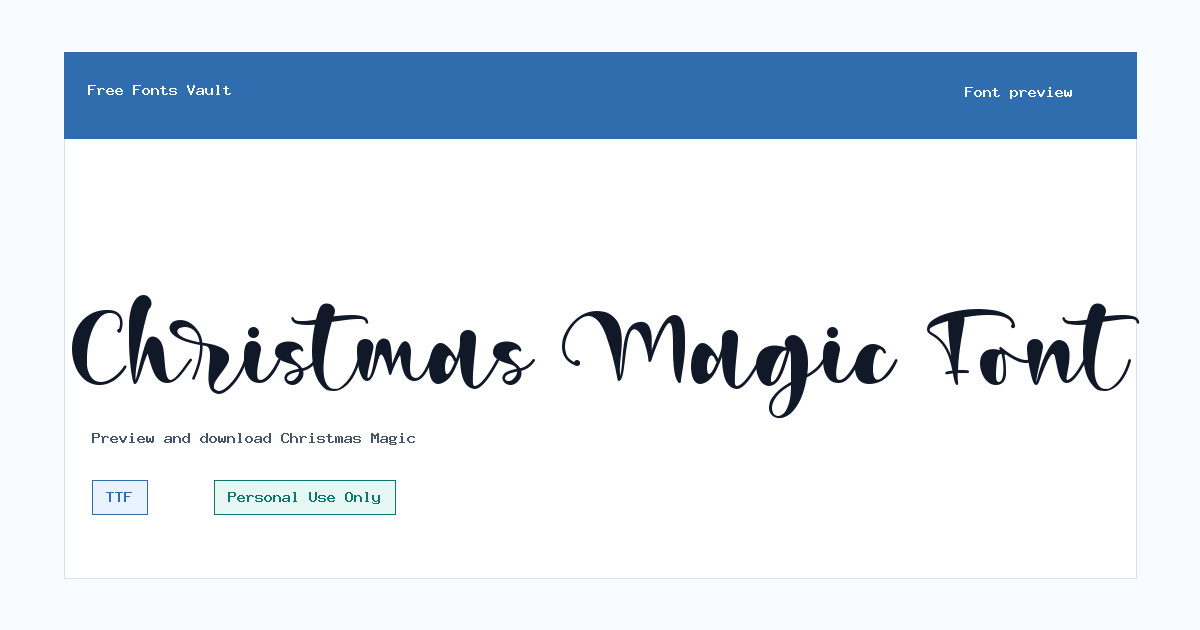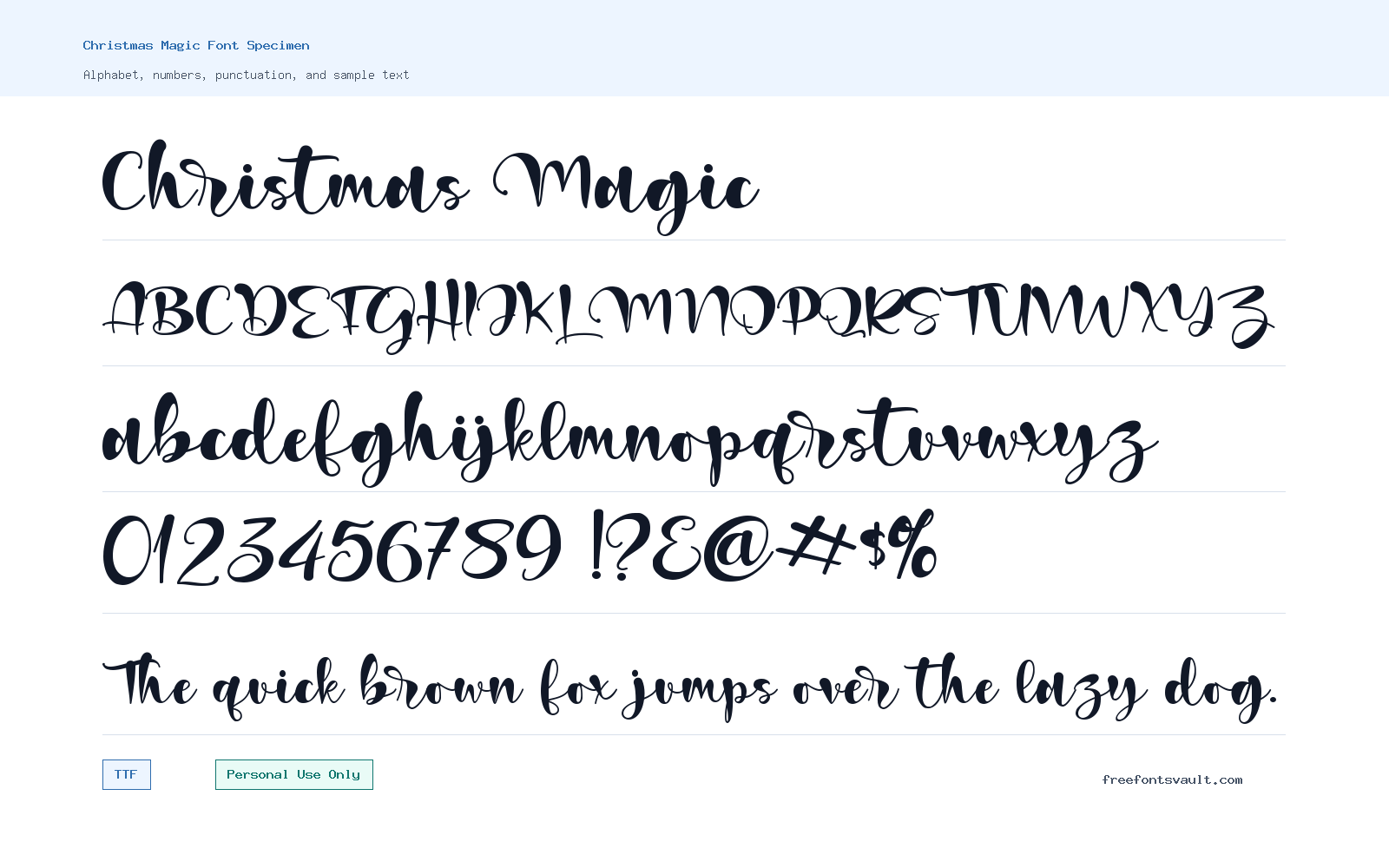
Christmas Magic
- Designer Letterara
Christmas Magic font.
Christmas Magic is a festive display font with a holiday feel, made for short text that needs a cheerful seasonal touch.
A small practical detail: festive fonts work better when the surrounding layout stays simple. Leave enough white space around the headline, avoid placing it over busy photos, and let the holiday lettering carry the mood without competing with too many other decorative elements.
About Christmas Magic
Christmas Magic works best as a decorative title font rather than a long-reading text face. Its name and style point toward Christmas and winter-themed design, so it is a natural fit for greeting cards, gift tags, party posters, social posts, shop banners, and holiday invitations. Use it when the words need to feel seasonal at first glance.
For the best result, test it in the preview with the exact words you plan to use. Decorative holiday fonts can look charming in headings but may lose clarity in small sizes or dense paragraphs. Try it for names, short greetings, sale headlines, and display text, then pair it with a clean sans serif or simple serif for body copy.
- Festive display style suited to Christmas and seasonal short text
- Christmas cards, holiday invitations, gift labels, and festive posters
- Seasonal social media graphics, shop headers, and short decorative headlines
What kind of projects is Christmas Magic good for?
It is best for festive short text such as Christmas cards, holiday posters, gift tags, invitations, and seasonal social media graphics.
Can I use Christmas Magic for body text?
It is better for headings and decorative words. For paragraphs, pair it with a clean, easy-to-read font.
Who designed Christmas Magic?
The font is credited to Letterara.